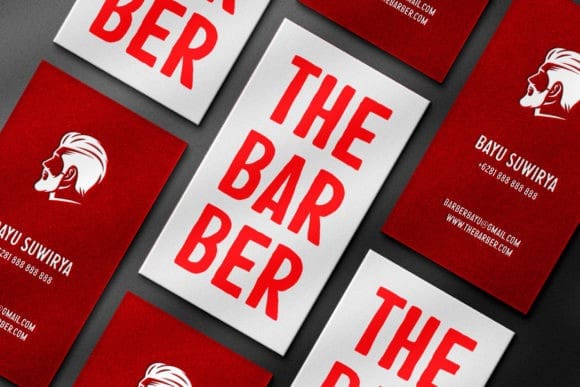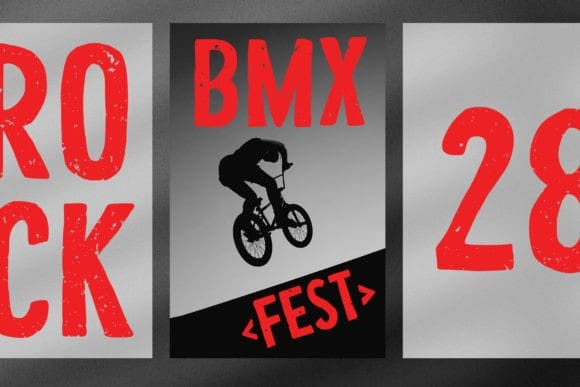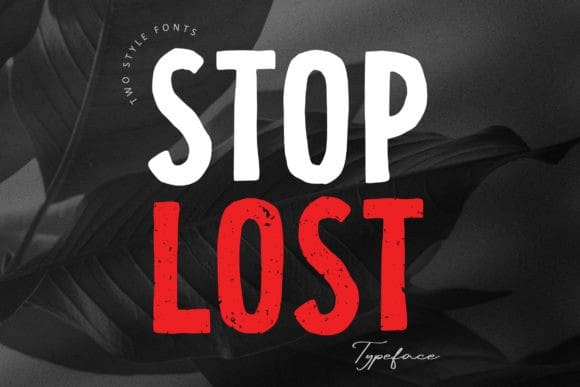
Stop Lost Font
Stop Lost Font is an awesome, bold styled display font that has a street art vibe. This font is suitable for designs such as t-shirts, sportswear, logos, advertisements, clothing, and more.